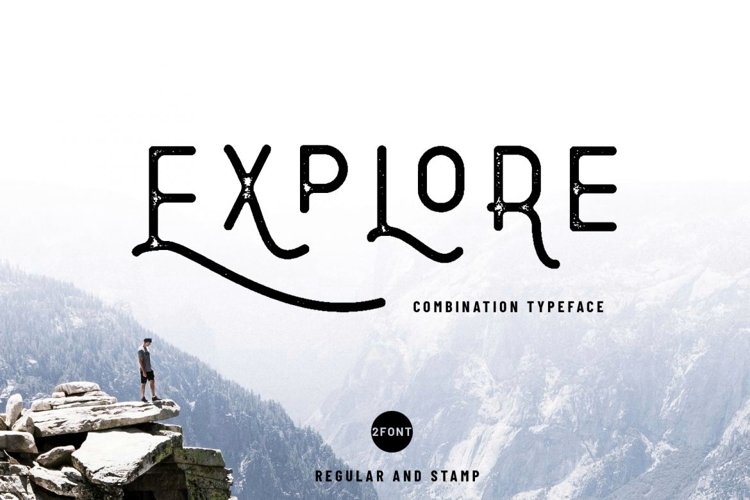
Explore - Combination Typeface
Explore1 Stamp
Introdce, Explore. A Stylish typeface with two style , regular and rough stamp. Explore good for clothing design, quotes, and branding.
- Explore Regular
- Explore Rough stamp